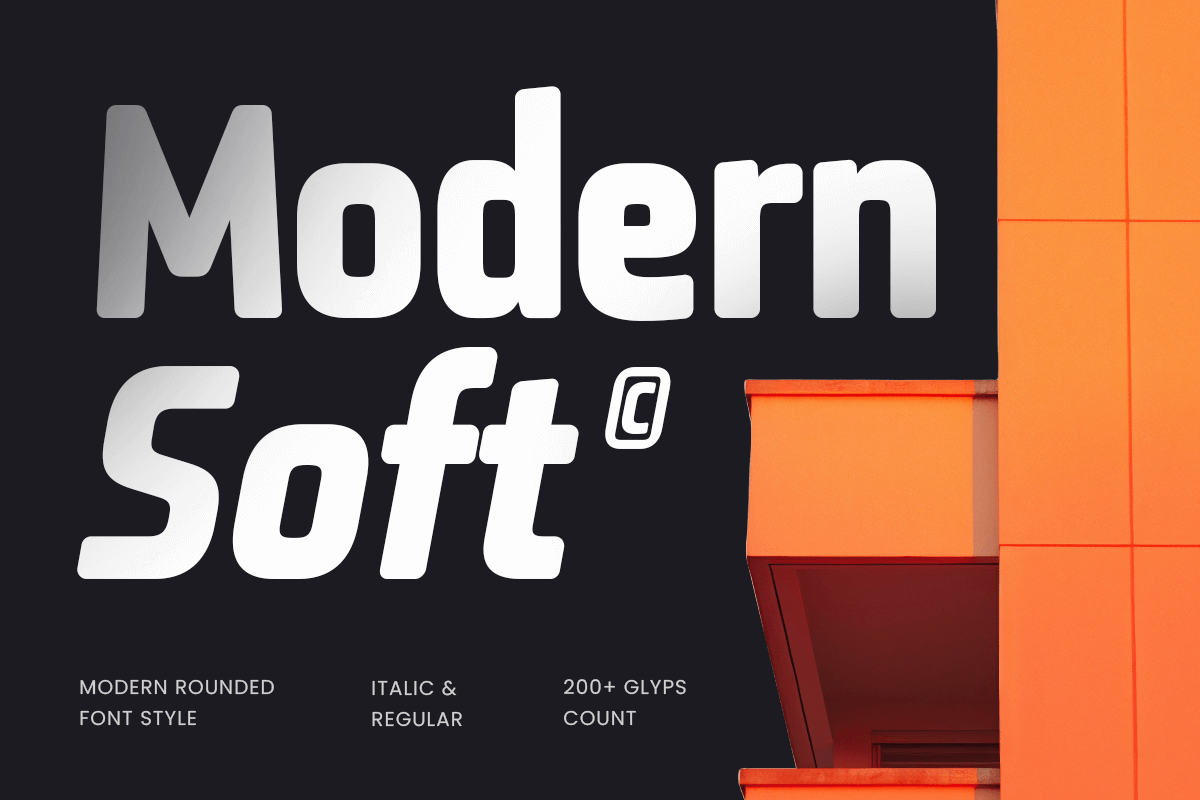
Modern Soft
-Modern Rounded Font
Modern Soft - Modern Rounded Font
Modern Soft font is a bold and futuristic rounded font that blends technology with smooth, modern aesthetics. Its strong yet soft letterforms make it perfect for tech branding, digital interfaces, gaming, futuristic logos, and high-tech product designs.
With sleek curves and a powerful structure, Modern Soft font delivers high-impact typography while maintaining smooth readability. The bold and condensed style makes it ideal for digital dashboards, esports branding, AI-driven designs, and cyberpunk aesthetics. Whether you're crafting cutting-edge advertisements, UI/UX elements, or modern web visuals, this font brings a futuristic and dynamic feel to your projects.
Step into the future of typography with Modern Soft font, where bold technology meets sleek design.
Modern Soft font - Tech Bold Rounded Font Features:
• Strong, bold, and futuristic rounded letterforms
• Ready with Regular and Italic Font Style Version
• Ideal for tech branding, gaming, and digital designs
• Punctuation, numbers, and symbols included
• Uppercase and lowercase letters
• OpenType features for advanced design flexibility
Make a bold statement with Modern Soft—the ultimate techno-inspired rounded font for futuristic and high-tech designs.